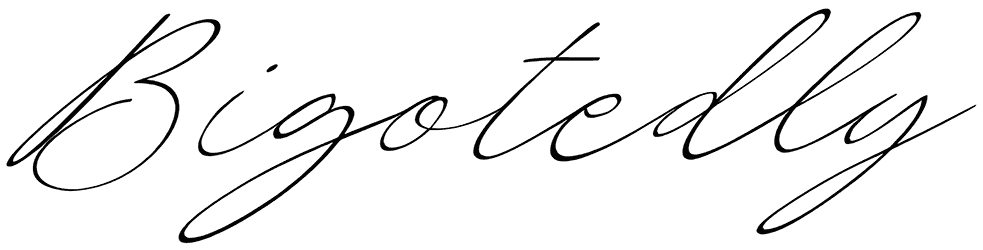
Bigotedly Font
It’s never been easier to keep things real than with a great signature font like Bigotedly. It’s such a shame that there’s no number included in the set, but it’s not like you need them anyway.
After all, the most common projects you’ll do with this italic font are your autographs on formal contracts, awards, and decrees. There are also some poetry books, business cards, and magazines that can make a splash with this kind of fancy handwritten style.